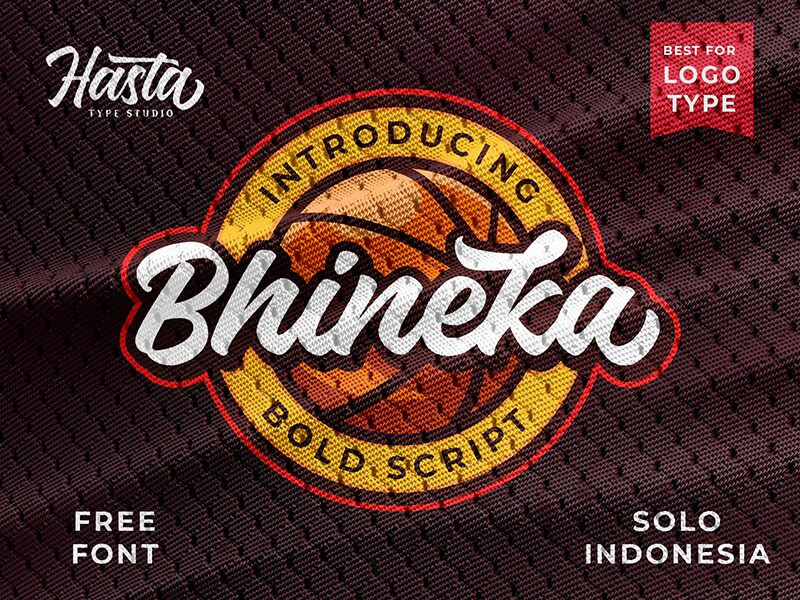
Bhineka is an amazing handwritten semi-bold font that adds a personal touch to any project. Designed by HastaType, Bhineka is perfect for creating a warm and welcoming atmosphere in branding, advertising, or social media posts. Its unique style makes it a great choice for invitations, greeting cards or wedding announcements as well. Bhineka's semi-bold weight ensures that your message stands out and captures attention with ease. Whether you're working on a logo design, website header or print materials, the Bhineka font promises to elevate your project to new heights with its creative flair and versatile appeal.
Bhineka